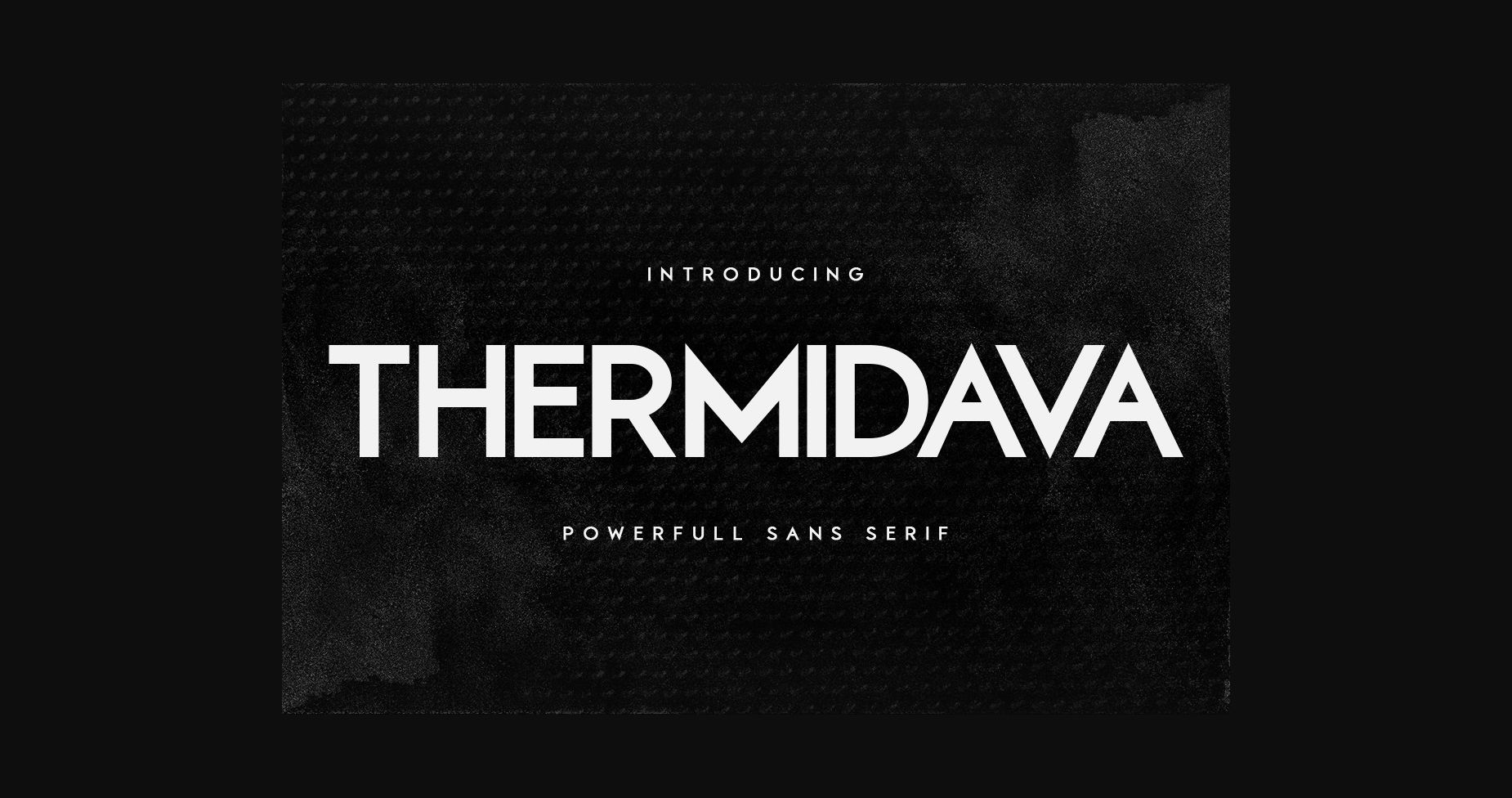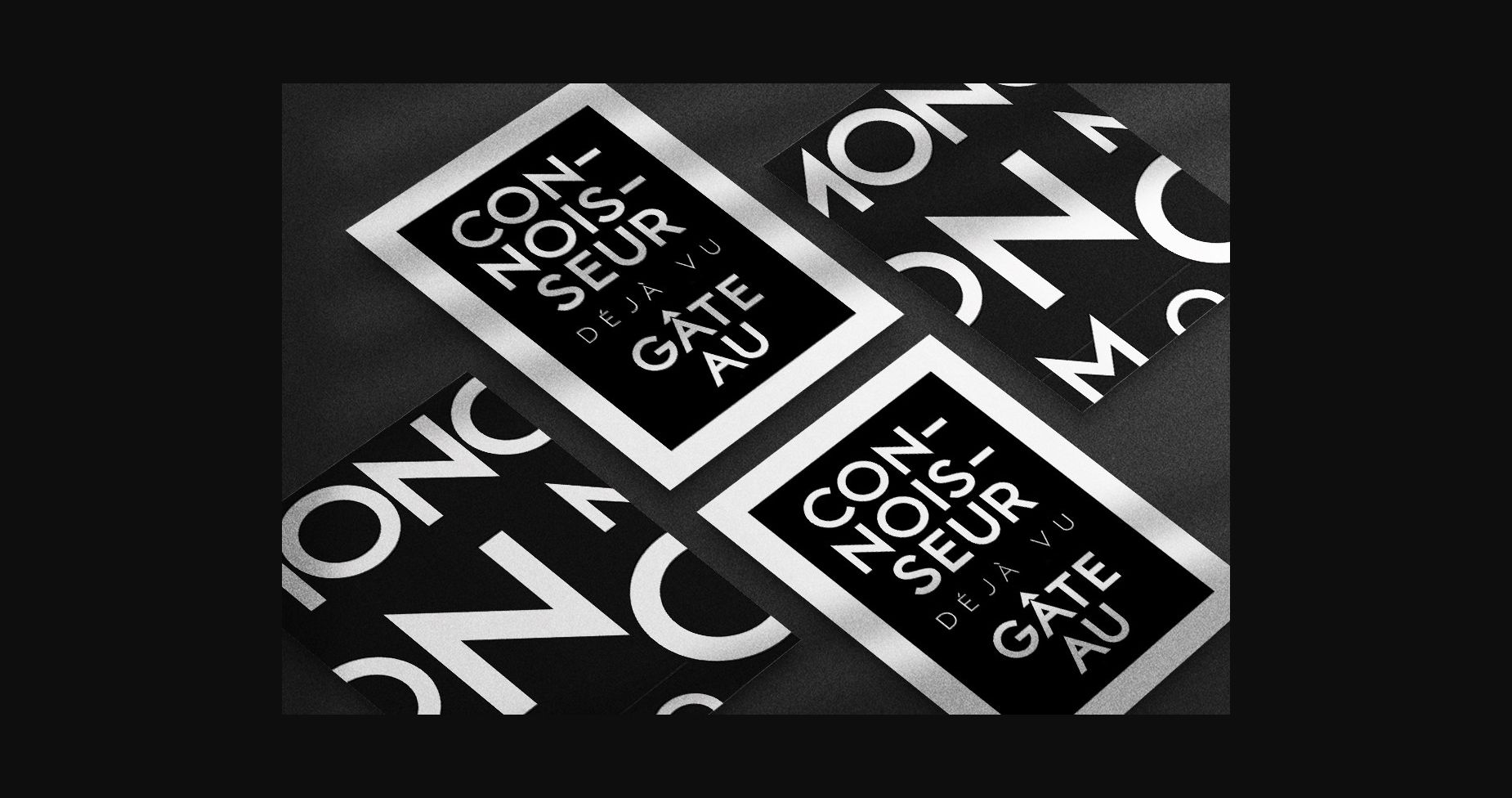
About Thermidava Font
Thermidava is a cool, modern and bold sans serif font. It can easily be matched to an incredibly large set of projects, so add it to your creative ideas and notice how it makes them stand out!